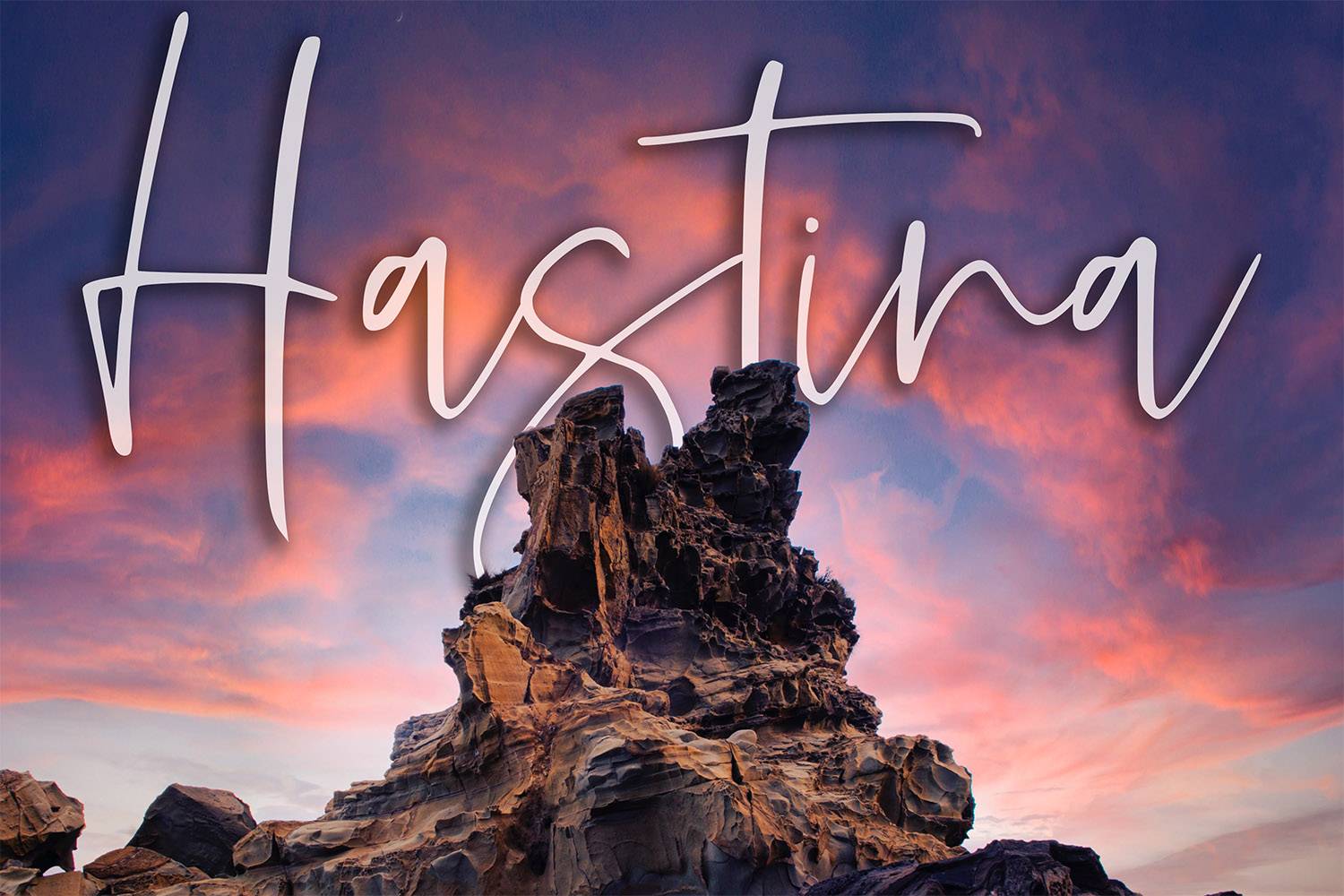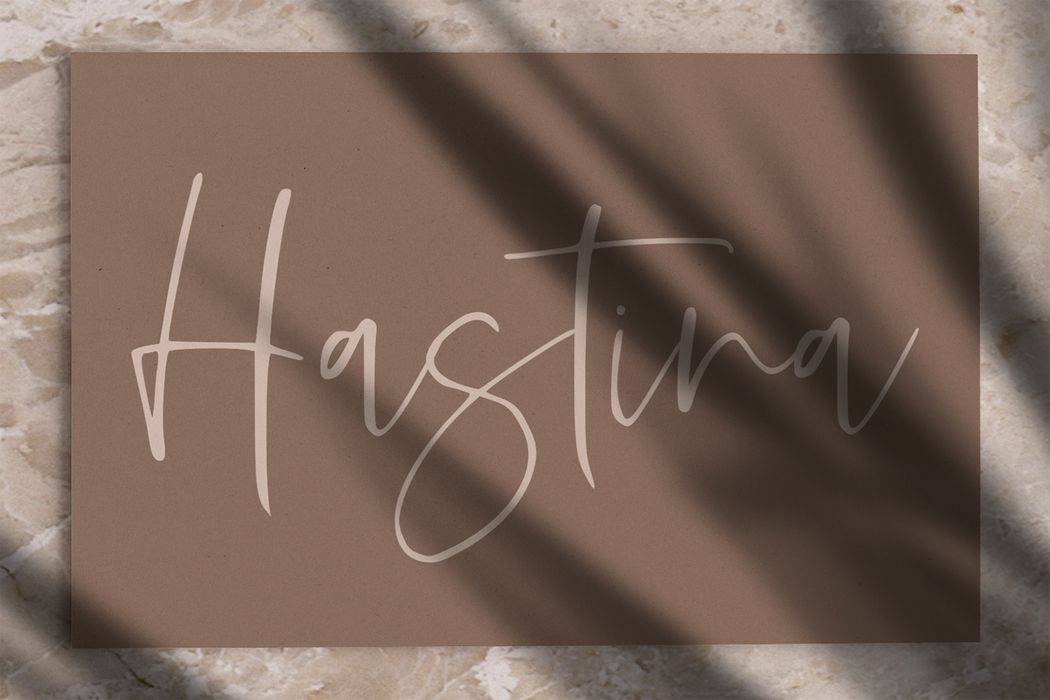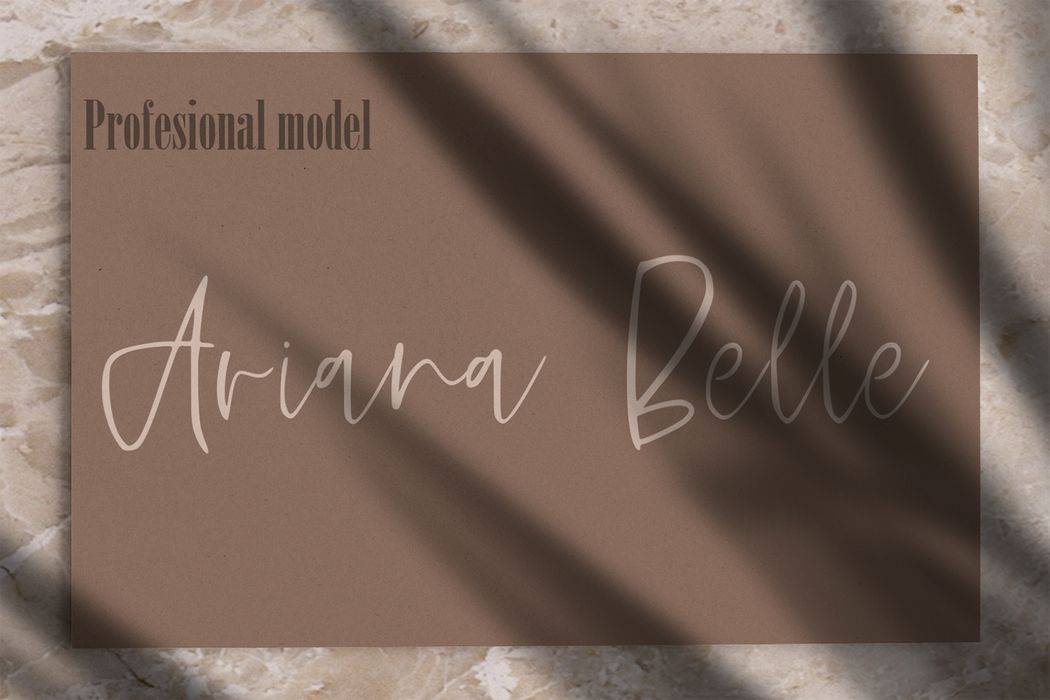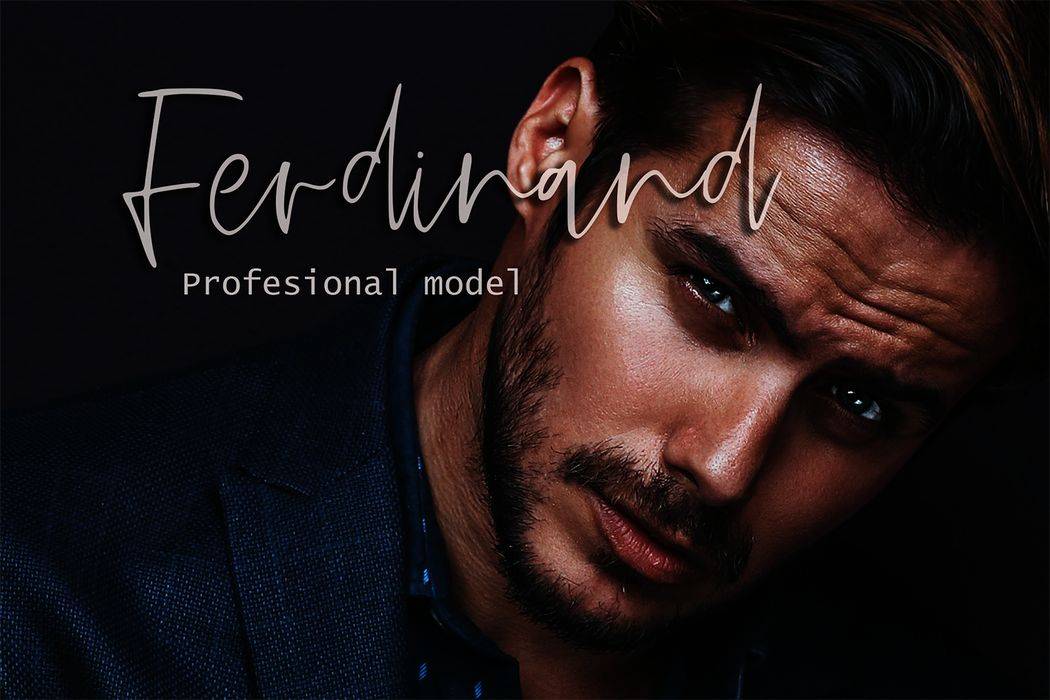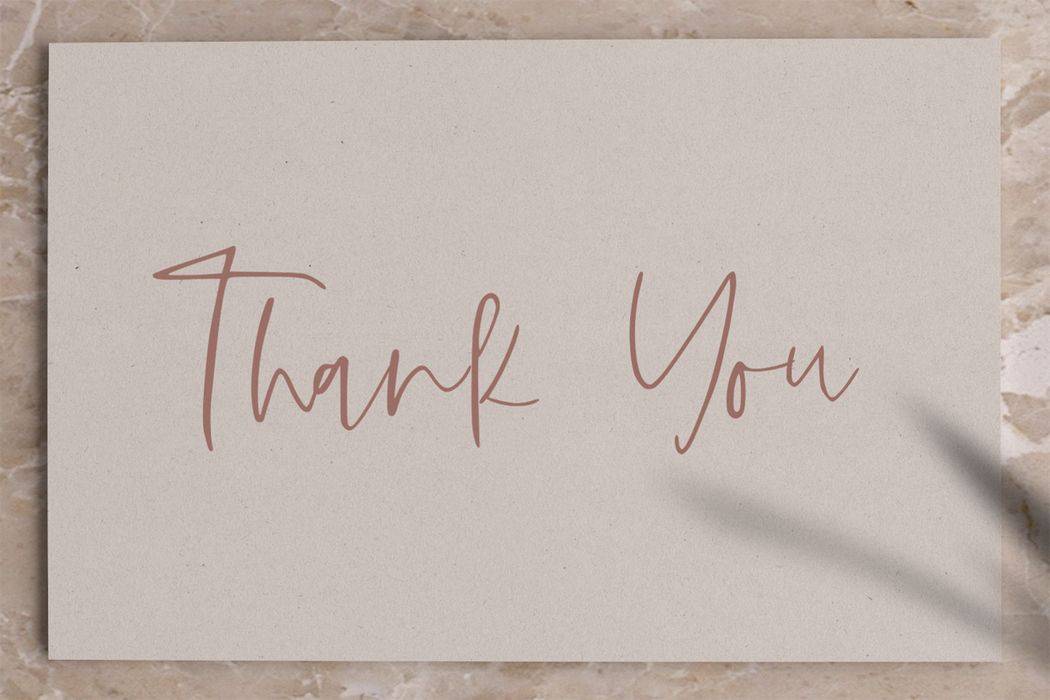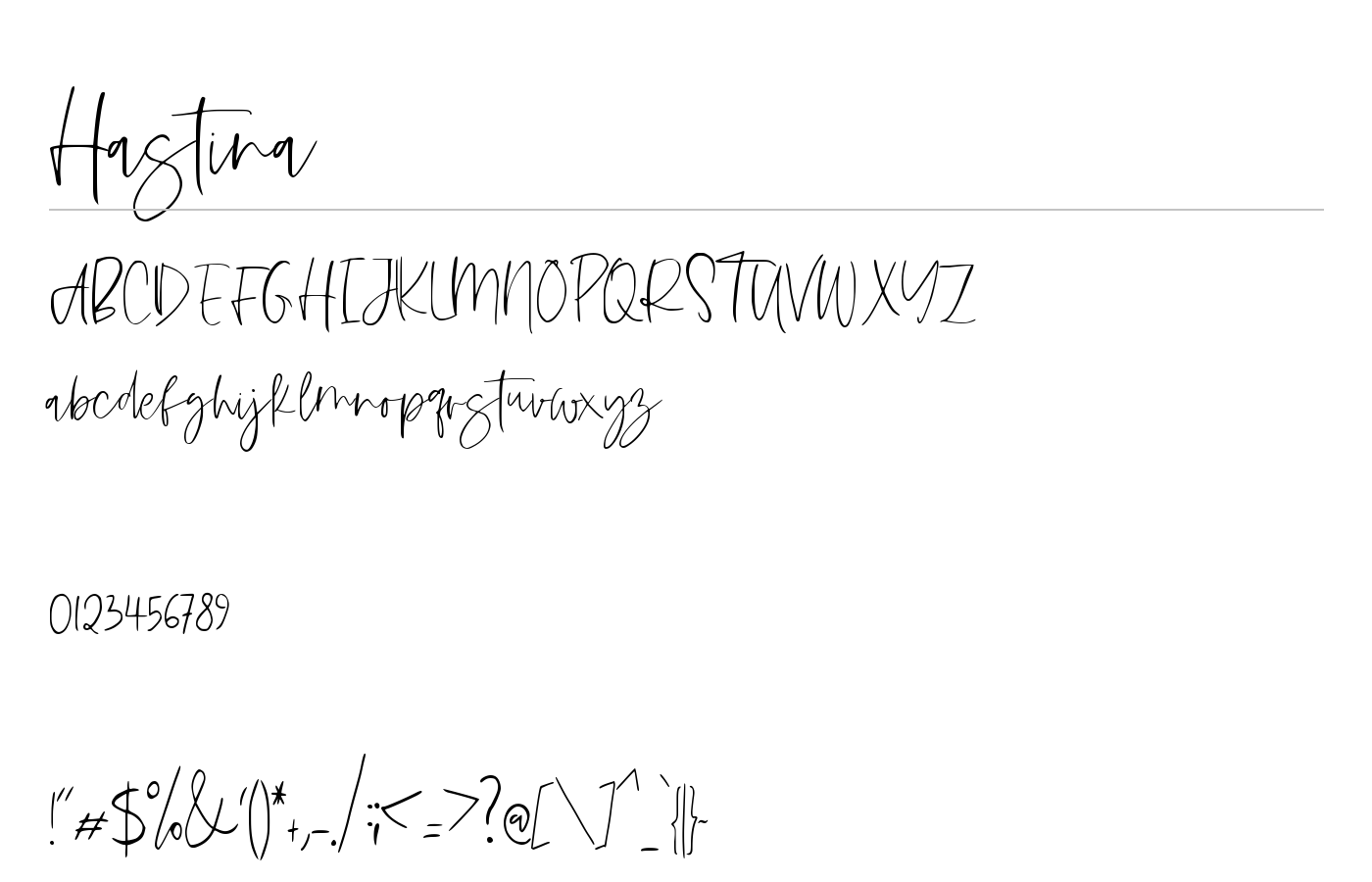
Hastina is a delicate and flowing handwritten script font with a light weight and tall, narrow letterforms that give it an elegant, airy feel. Its fine strokes and whimsical curves create a casual yet refined personality, perfect for creative branding, invitations, and stylish editorial designs where a personal, graceful touch is desired. This font shines in contexts that benefit from its playful sophistication and distinctive hand-crafted look.
Hastina Font
About Hastina Font
| Font family | Hastina Font |
| Designer | Andang 2021 |